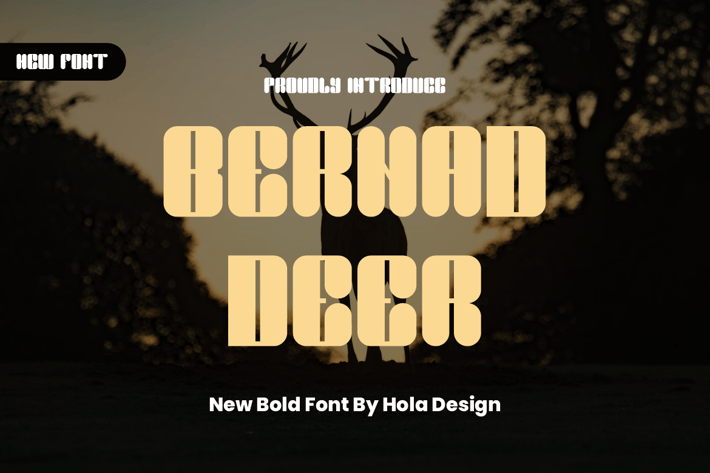
Bernad Deer - Sans Serif Font
Bernad Deer Font is unique . Ready to use for your design like labeling, movie sceen, poster, movie title, gigs, album covers, logos, and much more.